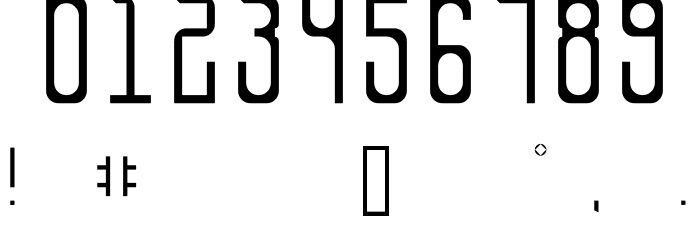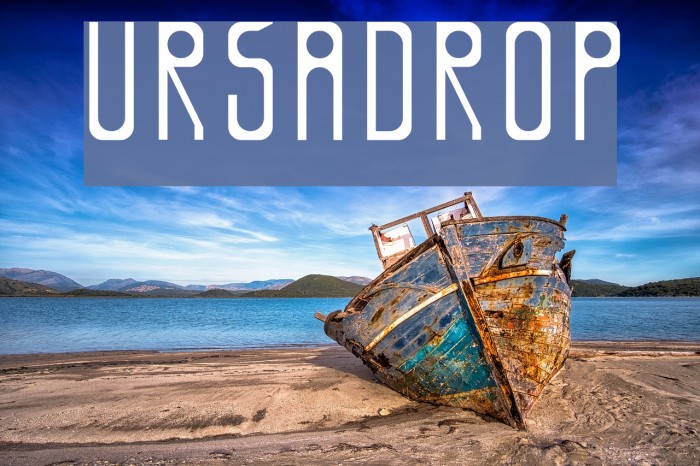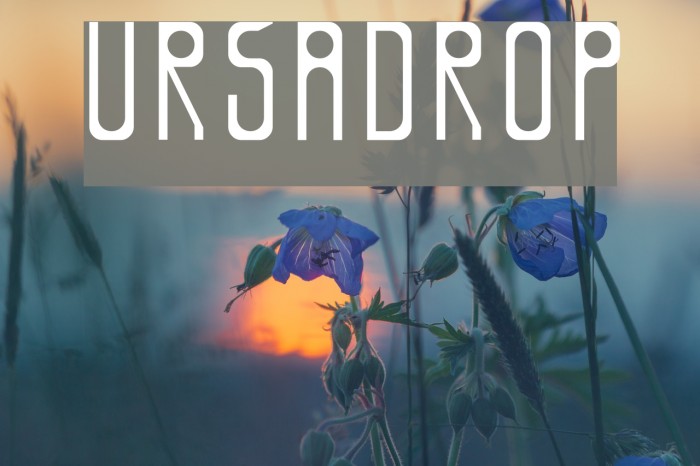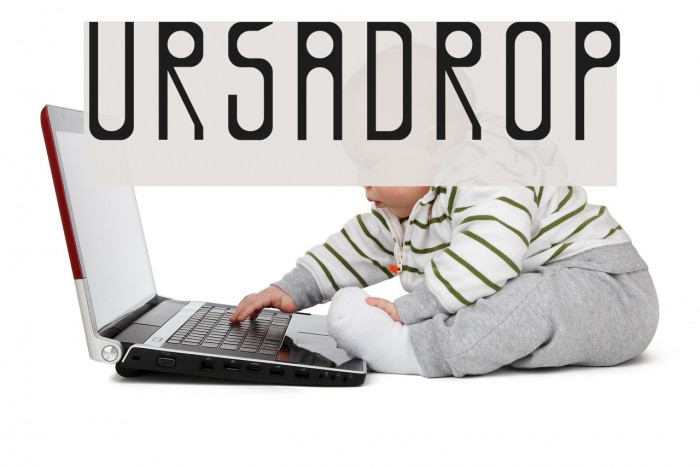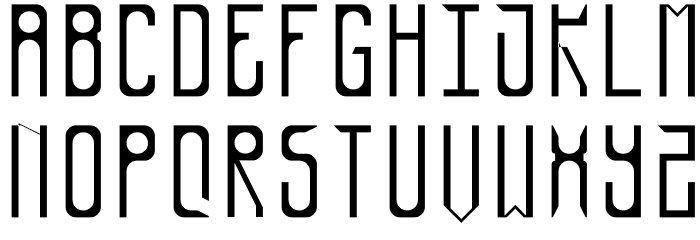
Ursadrop Font
Ursadrop Description
This font features a modern and geometric design with a distinctively angular and structured appearance. The uppercase letters are bold and tall, with sharp edges and clean lines, giving them a futuristic and industrial feel. The lowercase letters maintain a similar style, ensuring consistency throughout the typeface. Numbers are equally bold and follow the same geometric principles, making them highly legible. The special characters are designed to match the overall aesthetic, with a unique twist that adds character to the font. This typeface is ideal for projects that require a strong, contemporary look.
A modern, geometric font with bold, angular lines and a futuristic feel from Uncategorized fonts.
- Proposed Projects: Ideal for branding, posters, headlines, and any design requiring a modern, industrial touch.